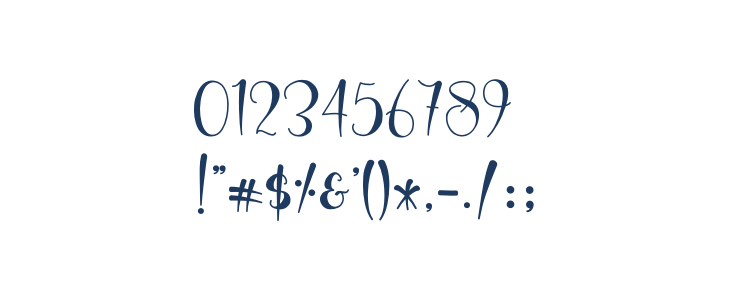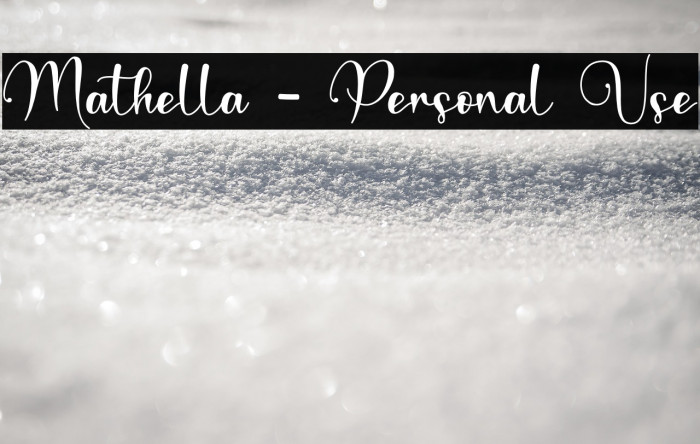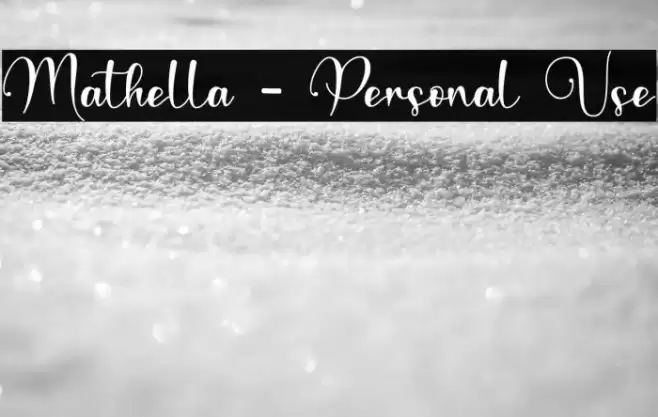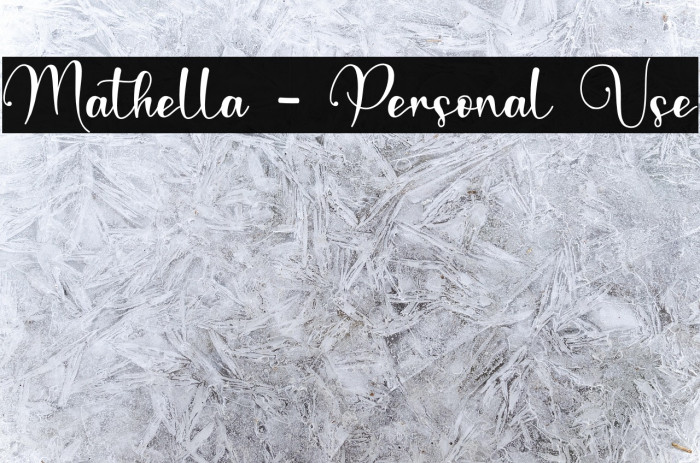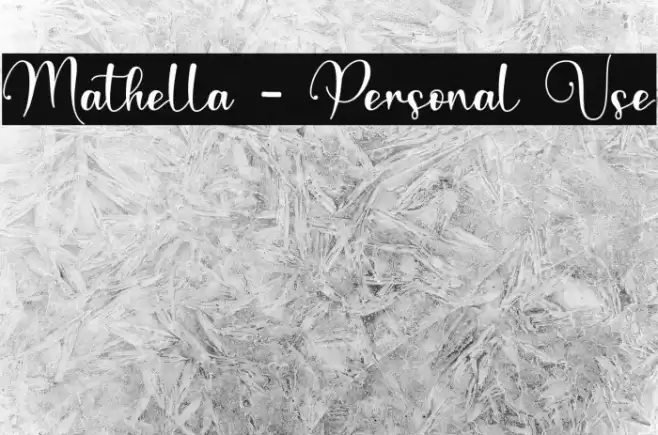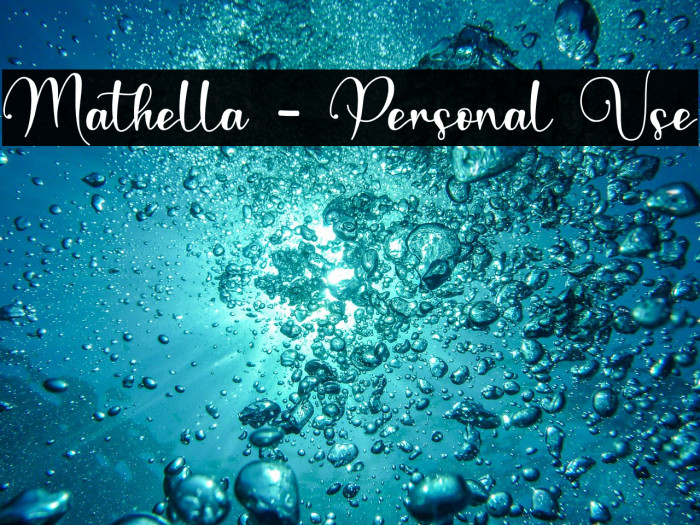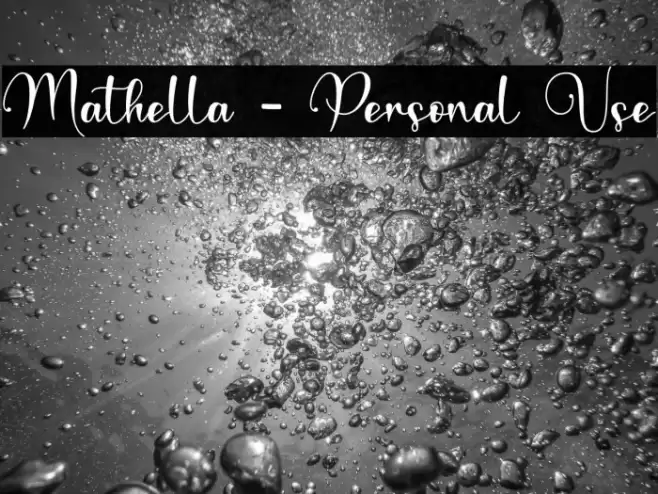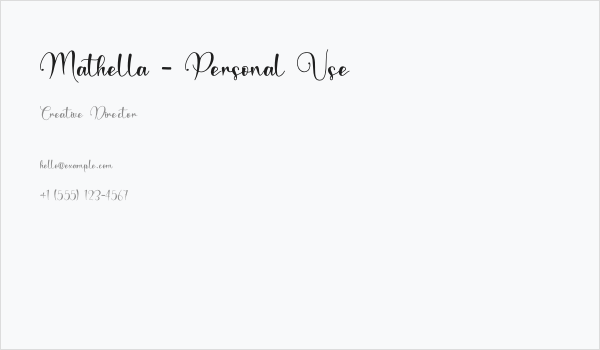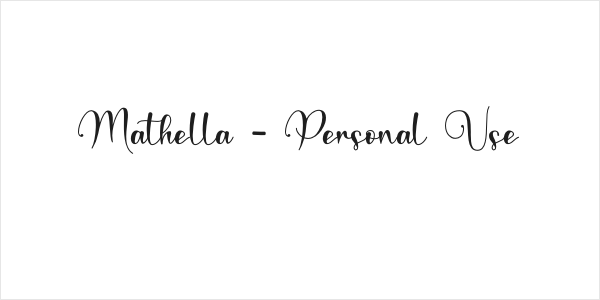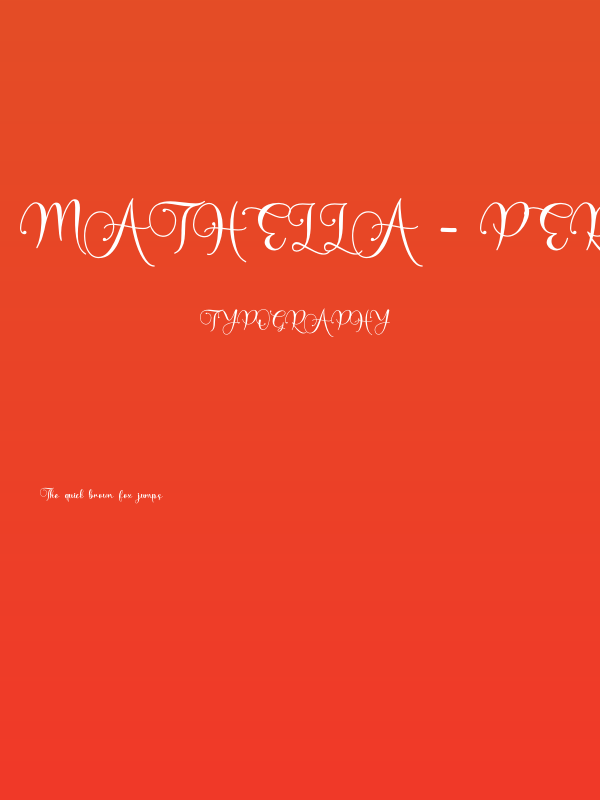
Mathella - Personal Use Font
Mathella - Personal Use Description
This font features an elegant and flowing script style, characterized by its graceful curves and loops. The uppercase letters are particularly ornate, with intricate swirls that add a touch of sophistication. The lowercase letters maintain a consistent flow, creating a harmonious and connected appearance. The numerals are bold and slightly rounded, complementing the overall aesthetic. Special characters are designed with the same attention to detail, ensuring a cohesive look across all glyphs. This font exudes a sense of elegance and charm, making it suitable for projects that require a personal and artistic touch.
| Proposed Projects | Ideal for wedding invitations, greeting cards, branding, and other creative projects that require a personal touch. |